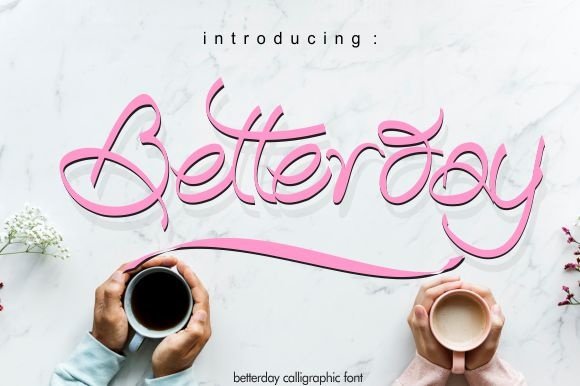
Introduction to Betterday Font
The Betterday is a calligraphic typeface which has an artistic hand writing feel.
It is suitable for product names, logos, greeting cards, branding, blog titles and every other design that needs a personal touch .